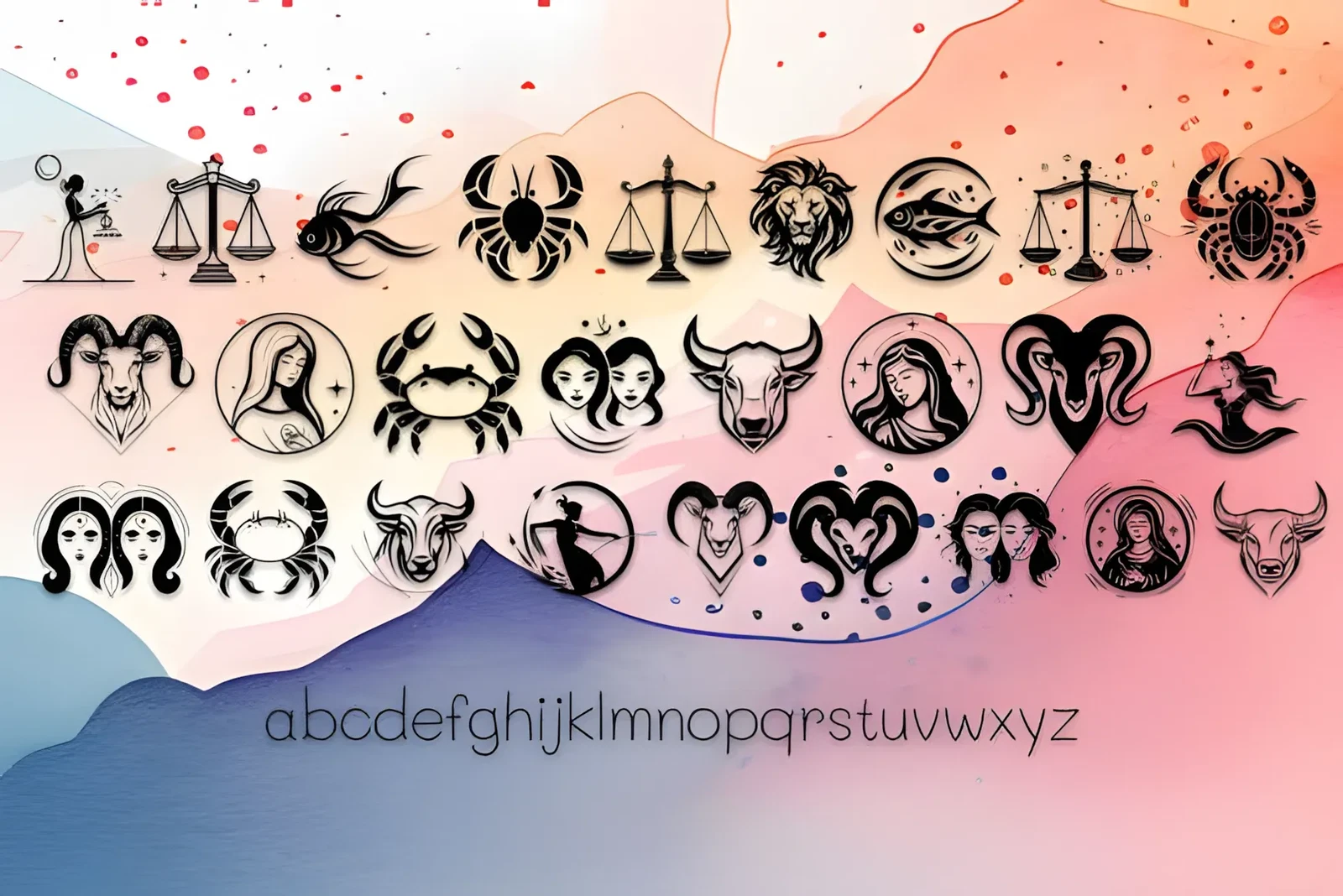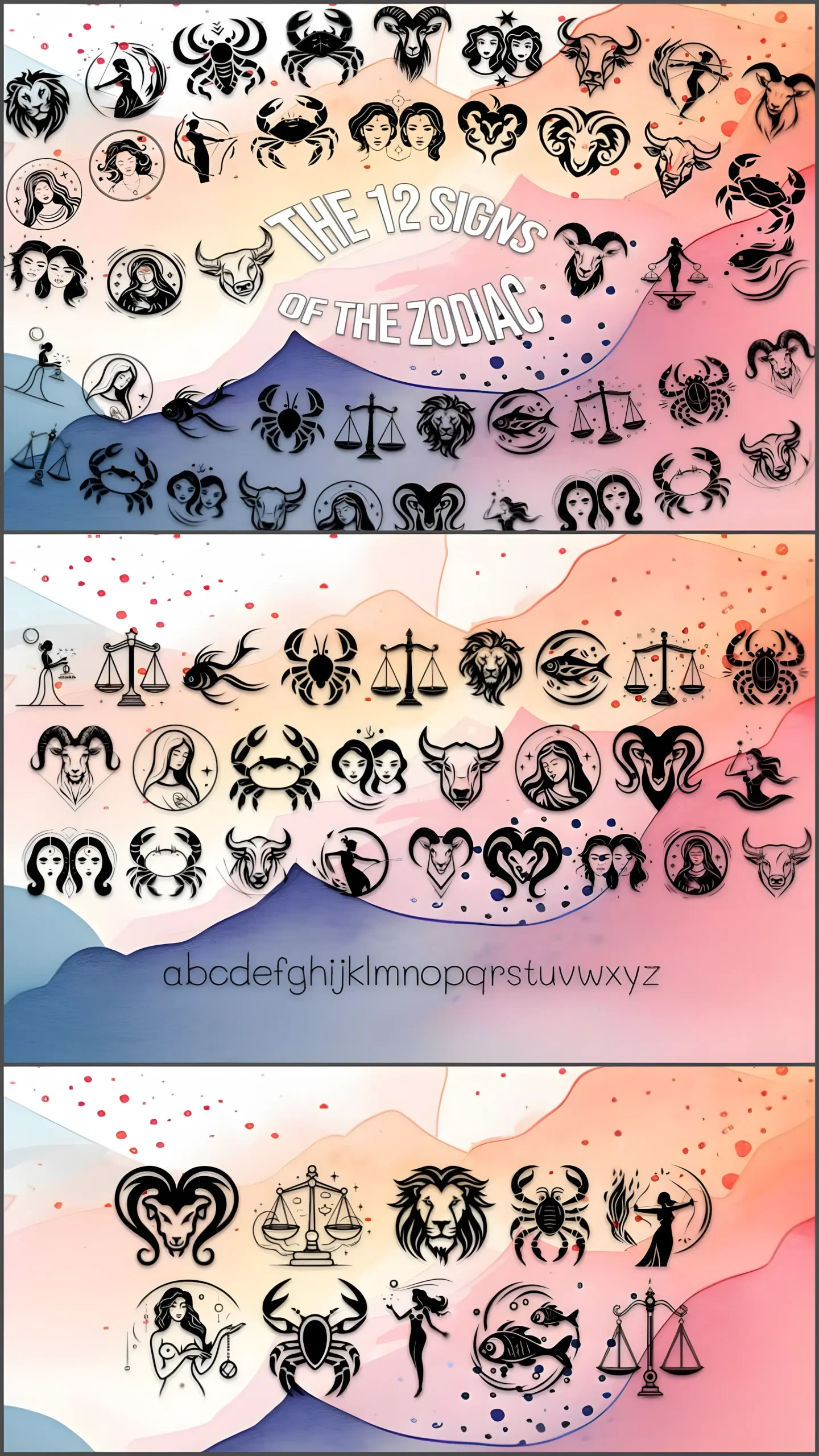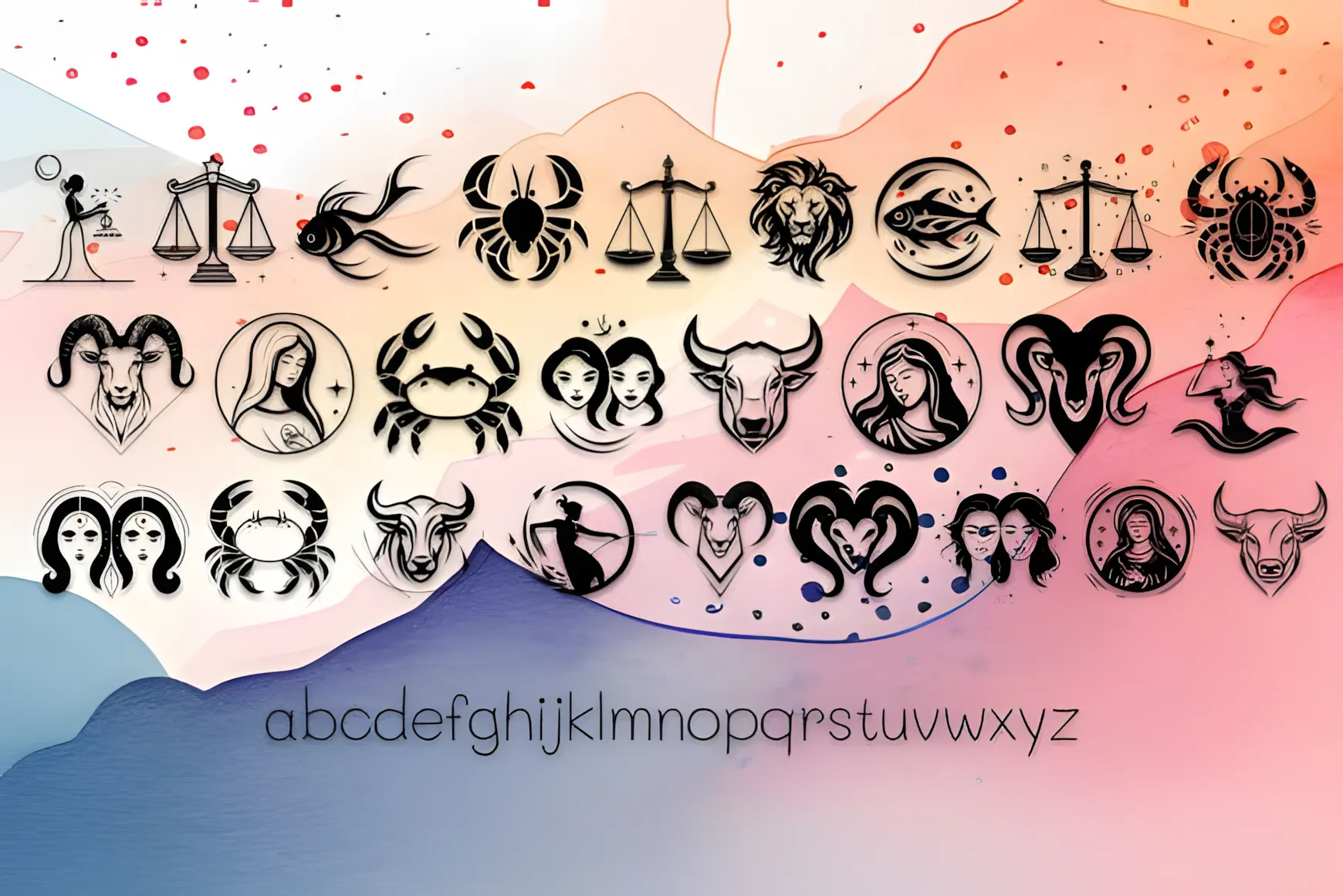
Some fonts are meant to be read, while others are designed to be explored visually. The 12 Signs of the Zodiac Font clearly belongs to the second category. This is a decorative dingbats font created to represent astrological symbolism through carefully designed zodiac icons.
Instead of traditional letterforms, this font uses symbolic glyphs inspired by the twelve zodiac signs. Each character becomes a visual element, making the font ideal for projects where meaning, symbolism, and atmosphere matter more than text flow.
Visual Style and First Impression
The 12 Signs of the Zodiac Font immediately feels mystical and symbolic. Each glyph represents an astrological sign using clean, illustrative icon design. The style balances elegance and clarity, ensuring that each zodiac symbol is recognizable and visually consistent.
The icons feel refined rather than overly ornate. Lines are smooth, shapes are balanced, and details are carefully controlled. This makes the font suitable for both modern and classic design aesthetics.
The overall impression is celestial, thoughtful, and slightly mysterious — perfect for astrology-inspired visuals.
A Dingbats Font Built Around Astrology
This font is designed as a dingbats typeface, meaning its primary purpose is to display symbols rather than traditional alphabet characters. It includes representations of the twelve zodiac signs, along with numbers and additional glyphs that complement the astrological theme.
Each symbol reflects the unique identity of its sign, allowing designers to use them individually or as a complete set. This makes the font highly flexible for symbolic layouts, decorative accents, and thematic compositions.
The consistent design language across all glyphs ensures visual harmony when multiple symbols are used together.
Designed for Zodiac and Celestial Projects
The 12 Signs of the Zodiac Font fits naturally into projects inspired by:
- astrology
- horoscopes
- zodiac symbolism
- celestial and cosmic themes
- spiritual and mystical design
It works especially well in projects where symbols carry meaning, such as personal branding, spiritual content, or themed merchandise.
Rather than relying on text, the font allows designers to communicate ideas through iconic visual language.
Practical Design Applications
Astrology Branding and Logos
This font works very well in branding related to astrology and spirituality. Zodiac symbols can be used as standalone icons or combined into logo designs.
It fits naturally into:
- astrology brands
- horoscope platforms
- spiritual studios
- personal identity systems
The clean icon style ensures logos remain readable and recognizable across different sizes and formats.
Posters, Prints, and Decorative Layouts
For posters and prints, the zodiac symbols become powerful decorative elements. They can be used as:
- focal points
- border decorations
- visual accents
The font allows designers to create astrology-themed posters without needing separate illustration files.
Jewelry, Tattoos, and Personal Items
Because the symbols are clean and iconic, this font is often used for:
- jewelry engraving concepts
- tattoo design ideas
- personalized gifts
The glyphs translate well into minimal, symbolic visuals that carry personal meaning.
Social Media and Digital Content
On digital platforms, zodiac symbols are instantly recognizable. This font works well for:
- social media graphics
- horoscope posts
- story highlights
- digital banners
Using symbols instead of words helps content feel visually engaging and universally understood.
Readability and Usage Notes
As a dingbats font, The 12 Signs of the Zodiac Font is not meant for body text. It is designed for:
- symbols
- decorative elements
- visual storytelling
Spacing and size are important. Giving each symbol enough space allows the details to remain clear and visually balanced. The font works best when symbols are treated as icons rather than text characters.
Emotional Tone and Design Feel
The emotional tone of The 12 Signs of the Zodiac Font is mystical and symbolic. It feels thoughtful rather than playful and meaningful rather than decorative.
The font supports designs that aim to express identity, personality, and cosmic connection. It works well for content that feels introspective, spiritual, or imaginative.
It is not intended for reading text, but as a symbolic dingbats font, it performs exactly as designed.
The 12 Signs of the Zodiac Font transforms astrology into a visual language. By turning zodiac signs into clean, elegant glyphs, it allows designers to work with symbolism in a simple and flexible way.
For creatives who want to incorporate celestial themes, personal meaning, or astrological identity into their projects, this font offers a practical and visually refined solution. Used thoughtfully, it adds depth, symbolism, and cosmic character to any design.